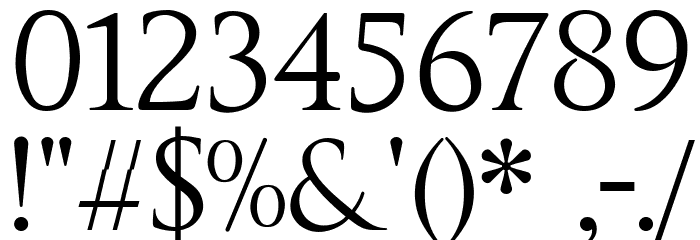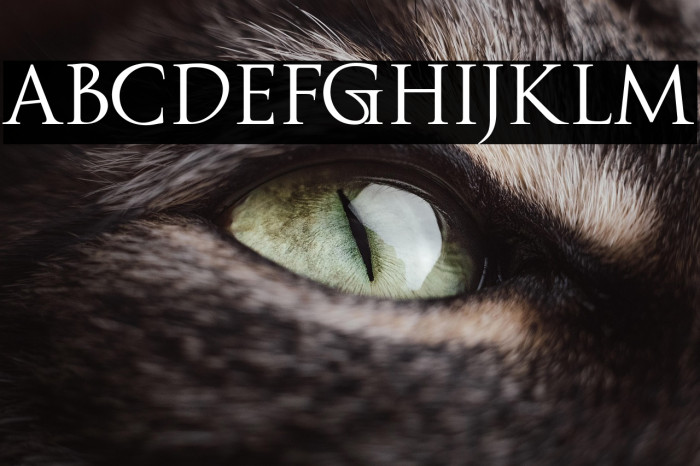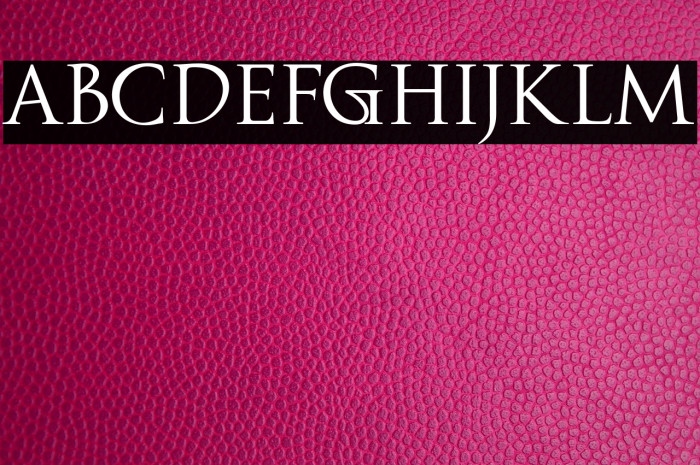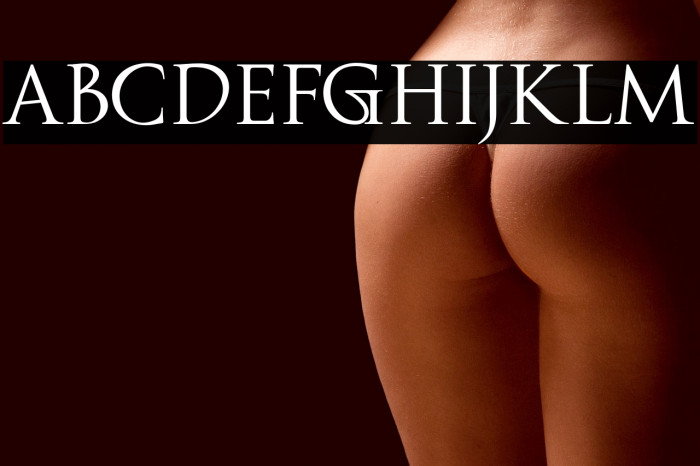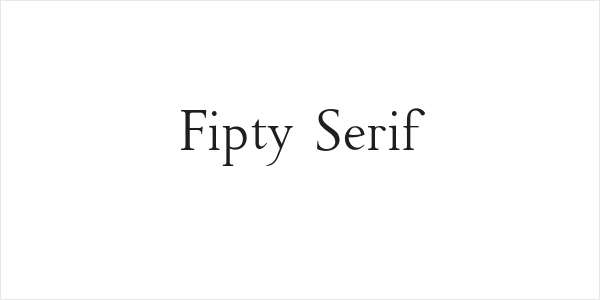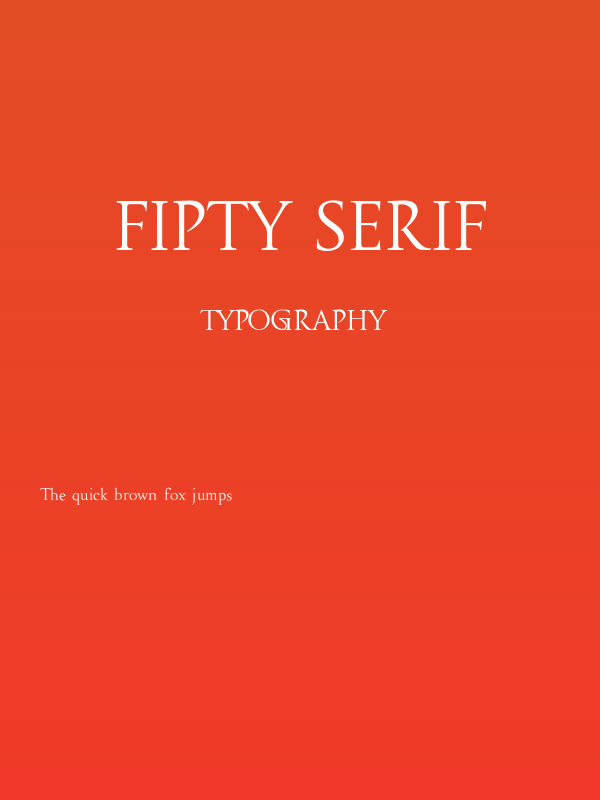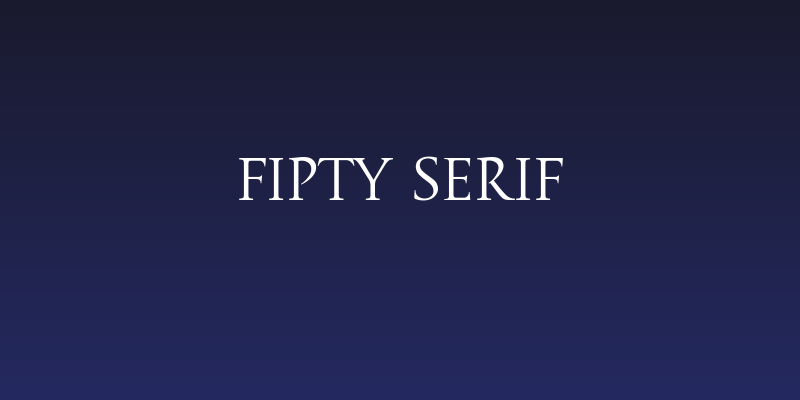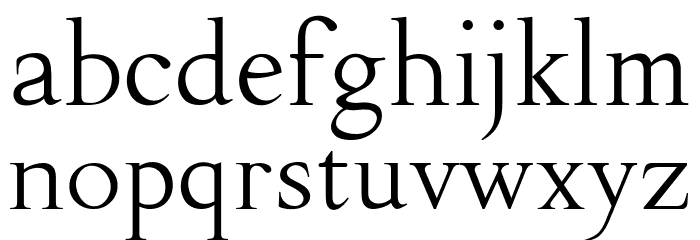
Fipty Serif Font
Fipty Serif Description
This serif font exhibits a classic and elegant style with distinct, sharp serifs and a balanced proportion between thick and thin strokes. The uppercase letters are tall and commanding, while the lowercase letters maintain a harmonious flow, making it suitable for both formal and creative applications. The numerals are clear and well-defined, ensuring readability. Special characters are crafted with attention to detail, enhancing the font's versatility. The overall design is timeless, making it ideal for projects that require a touch of sophistication.
| Proposed Projects | Ideal for book covers, editorial design, branding, and formal invitations. |